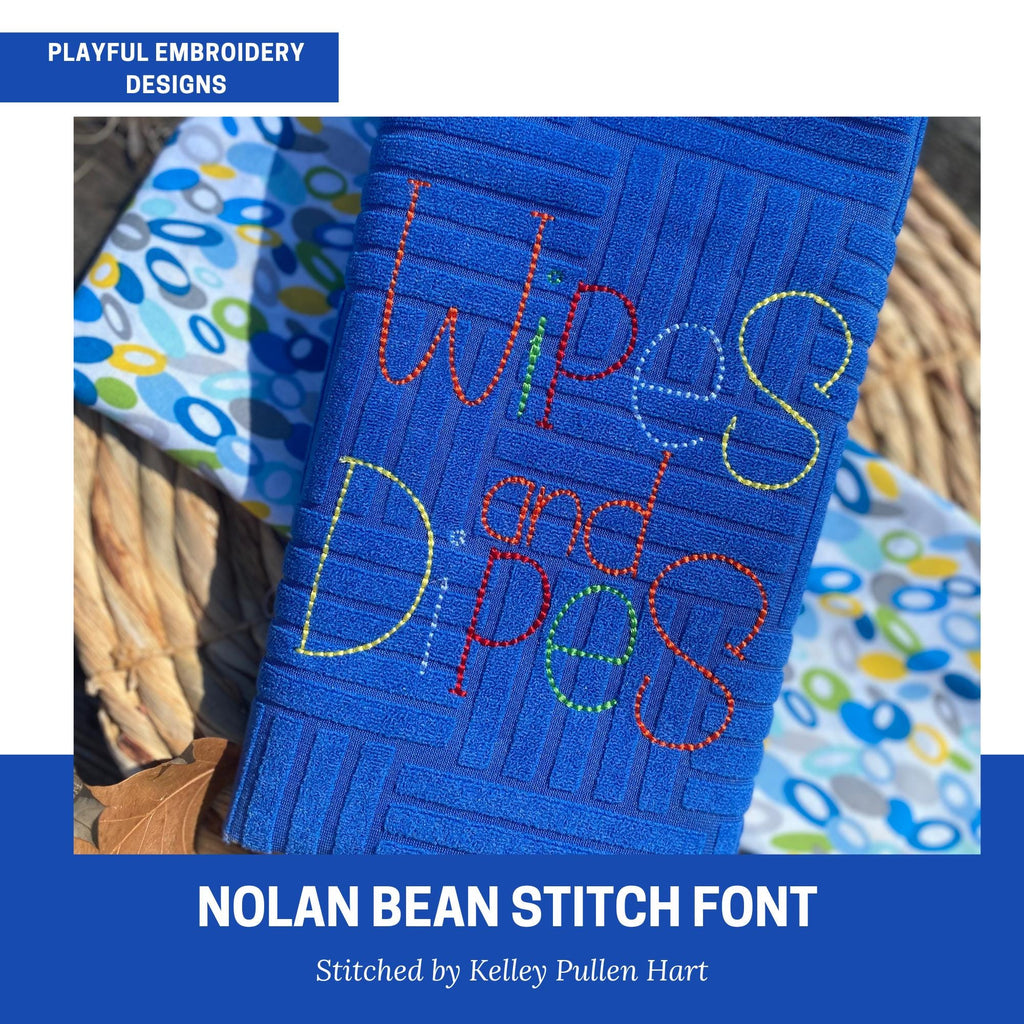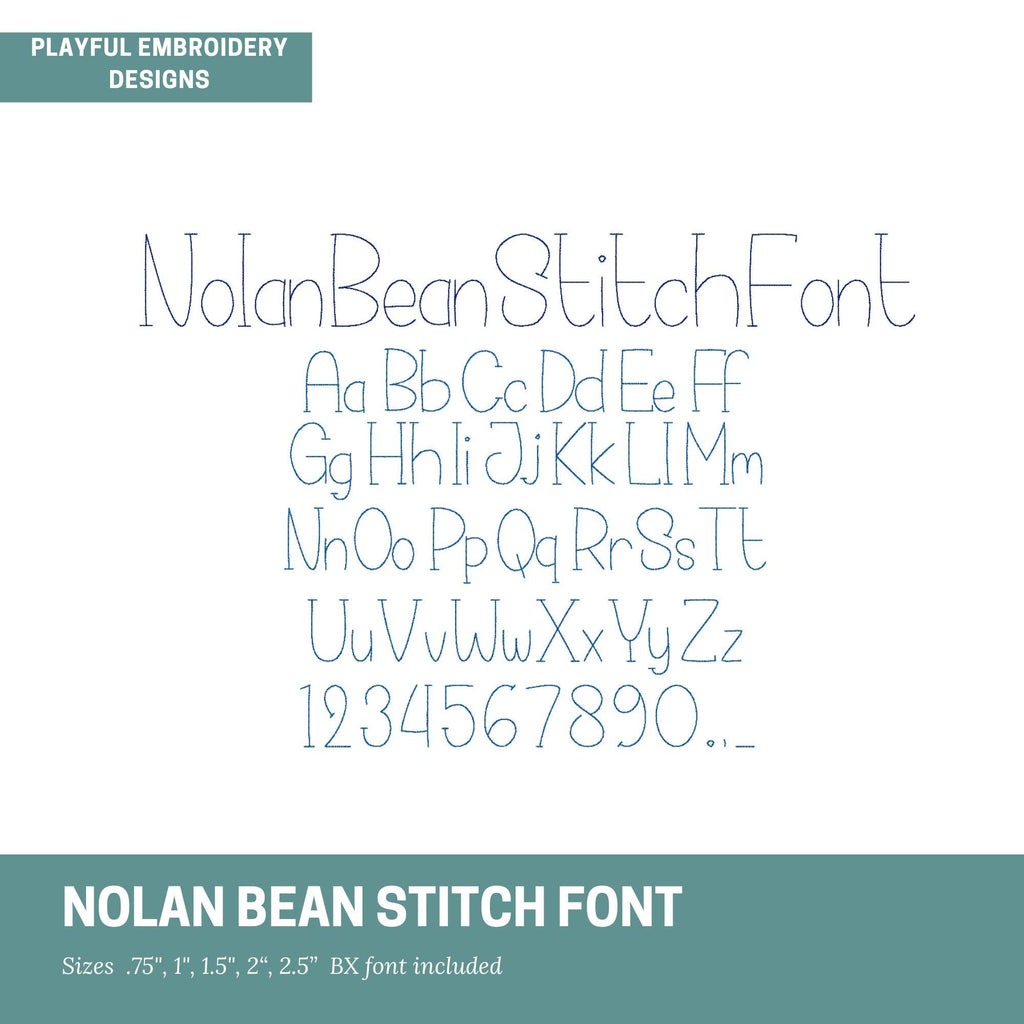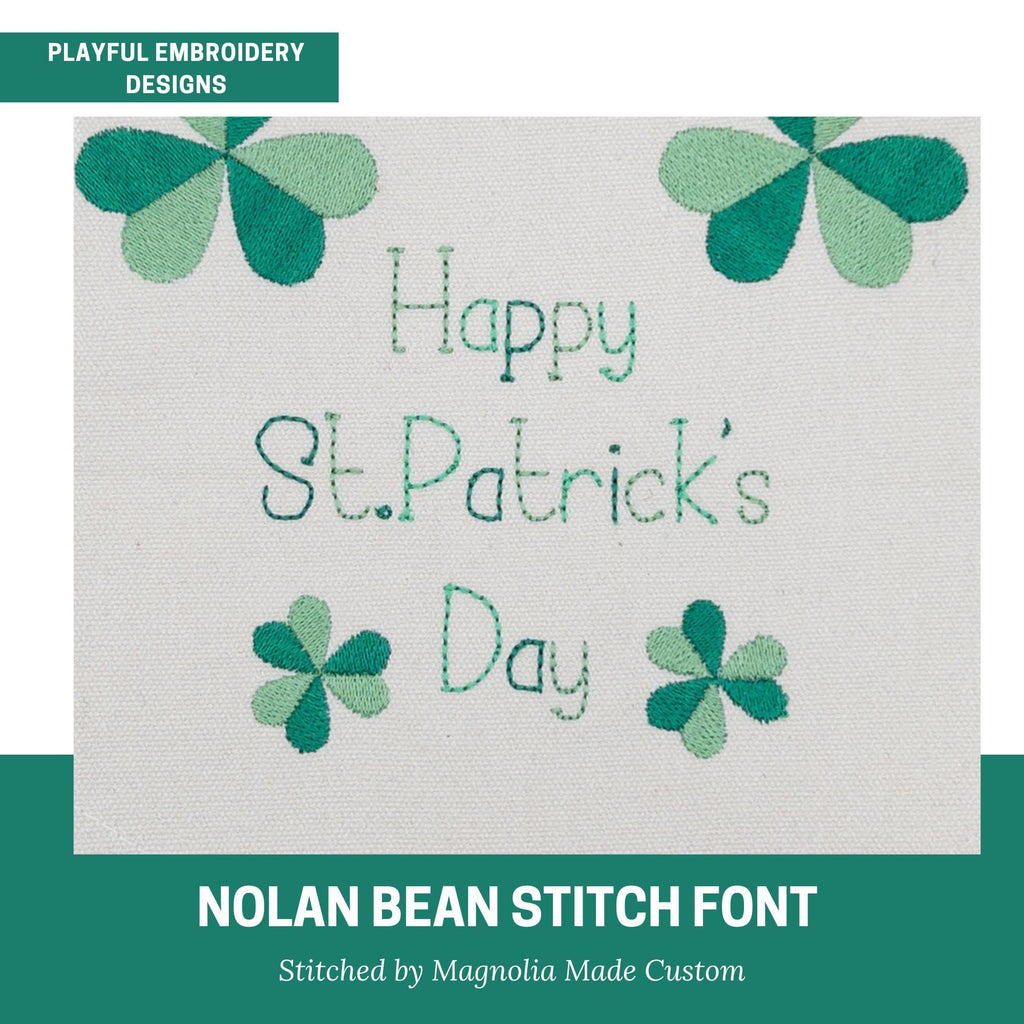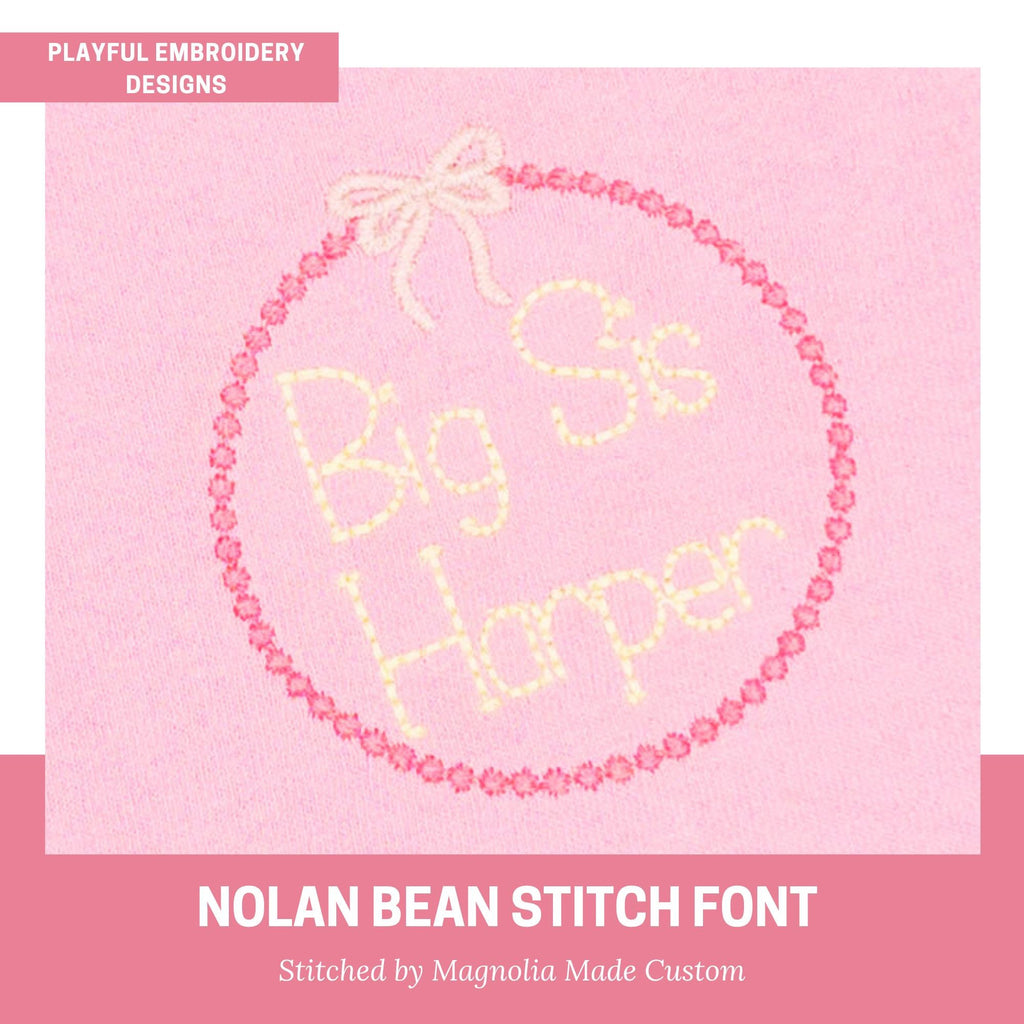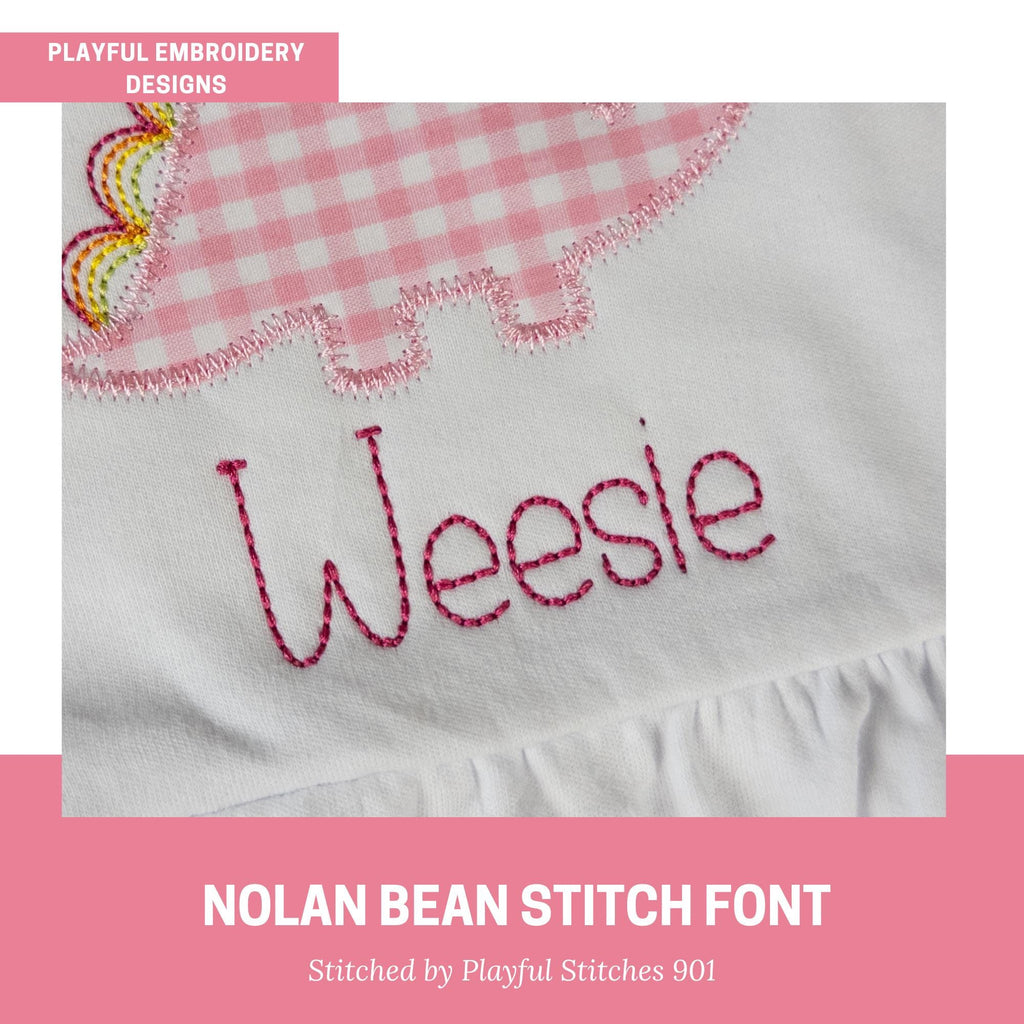
The Nolan Bean Stitch Embroidery Font, Handwriting Machine Embroidery Font, Playful Embroidery font, Floss Stitch Embroidery Font
Introducing the Nolan bean stitch handwriting machine embroidery font. This fun and playful font is perfect for children's and baby items or anything you want a handwritten print look.